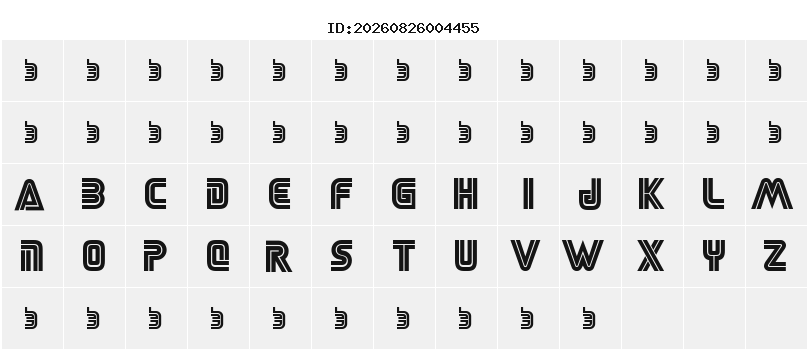
• Font Name: SEGA LOGO FONT
• Full Font Name: SEGA LOGO FONT
• PostScript Name: SEGA
• Character Count: 28
About SEGA LOGO FONT.ttf
SEGA LOGO FONT.ttf is a modern, elegant sans-serif font designed for ultimate readability and visual harmony. Perfect for branding, headlines, web design, and print materials.